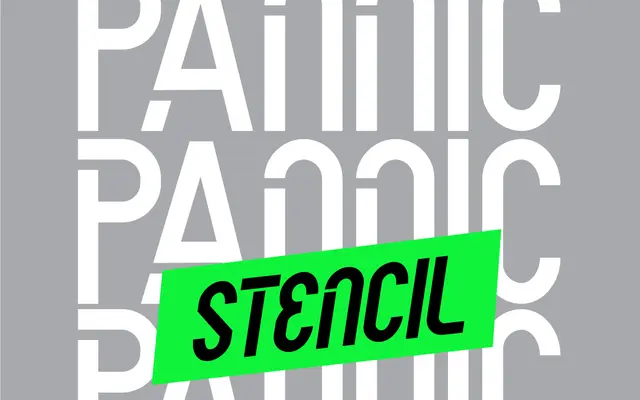
A nine-weight sans-serif family from Dirty Line Studio, available as a variable font spanning Thin to Black.
The family covers nine static weights from Thin to Black, with a variable font version allowing continuous interpolation across the full range. Suited to branding and display work where weight contrast between headline and body is needed. No italic or condensed cuts are offered, keeping the family focused on upright settings.
The clean, even stroke widths and wide weight range from Thin to Black suggest a geometric or neo-grotesque sans-serif construction typical of contemporary display-oriented families.